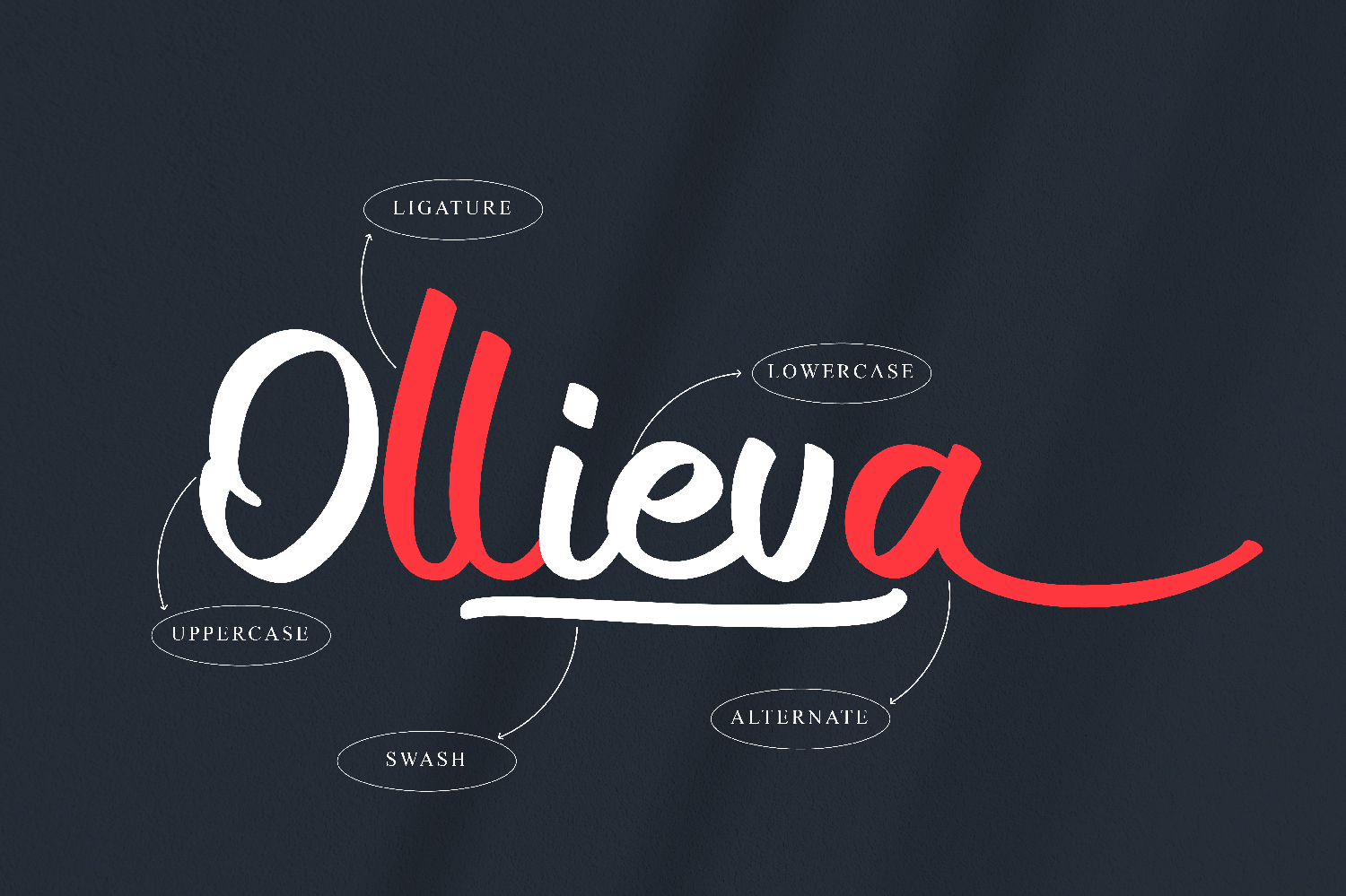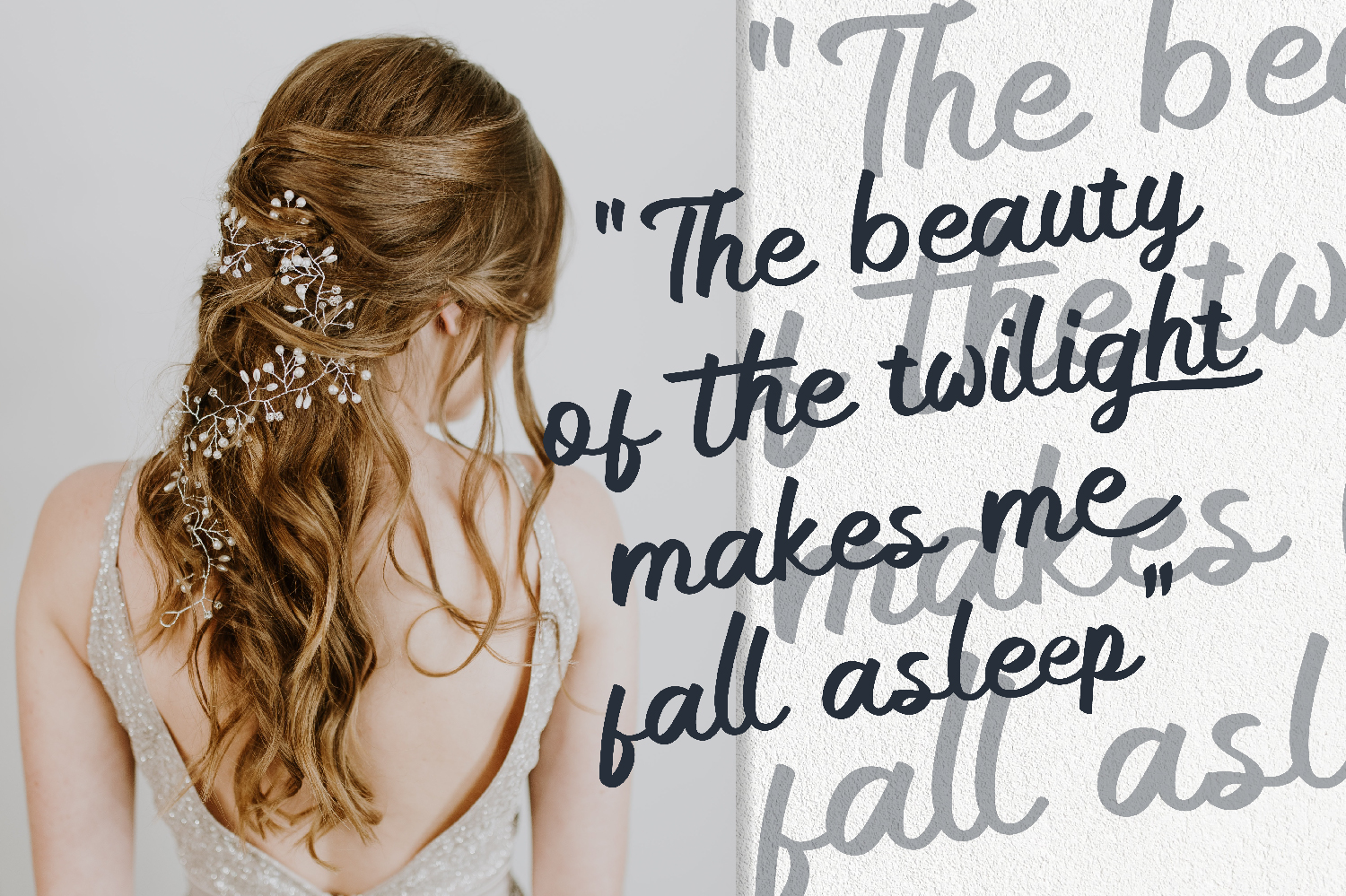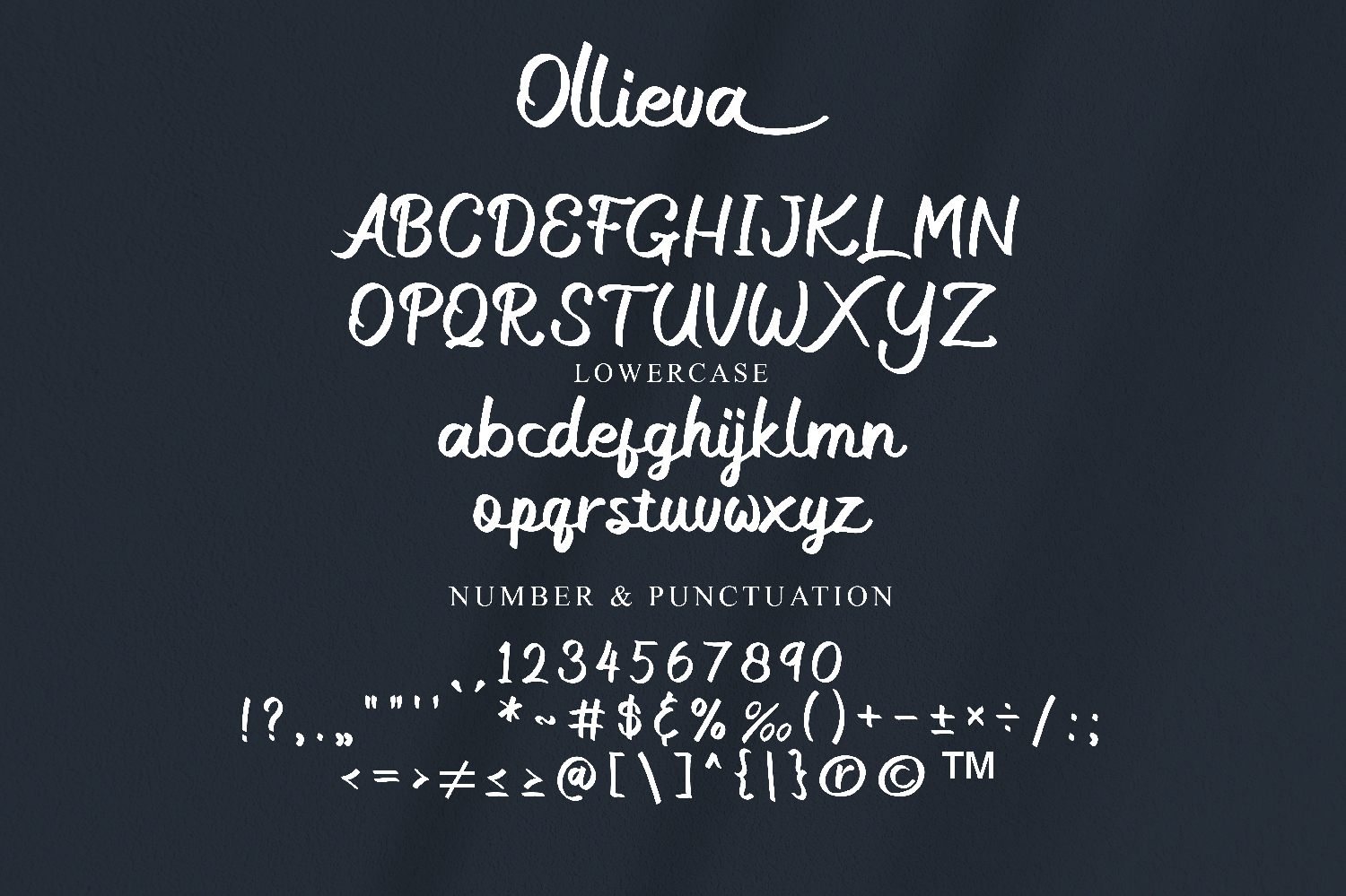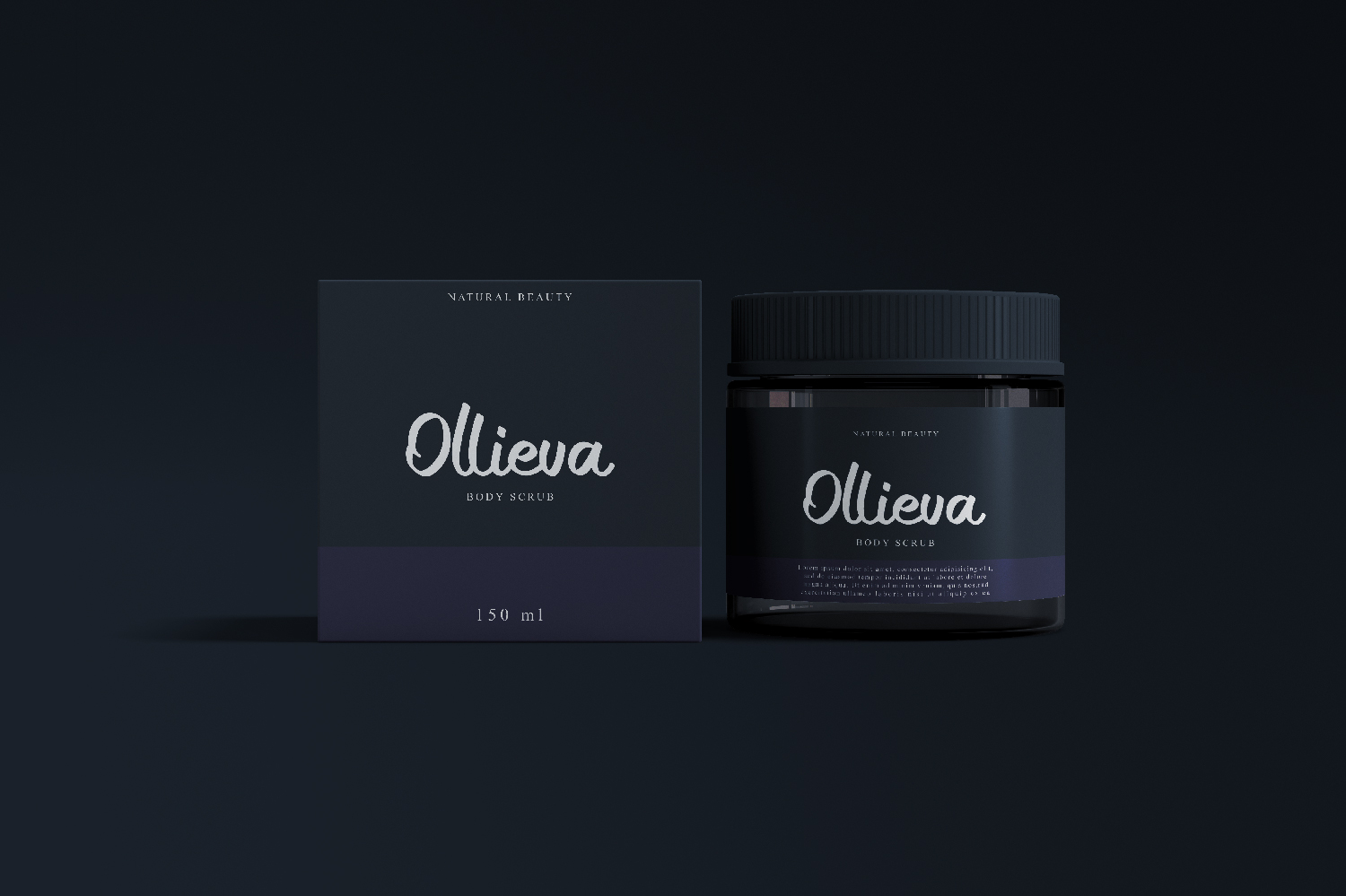
Ollieva Font
Ollieva Script Font
This Font can be used for any variety of purposes, such as: Photography, Wedding Invitation, Packaging Product, Logo Type, Brand, and also can be used for personal purpose.
This Font Template contains Modern, Elegant, creative, Professional and Unique Concept.